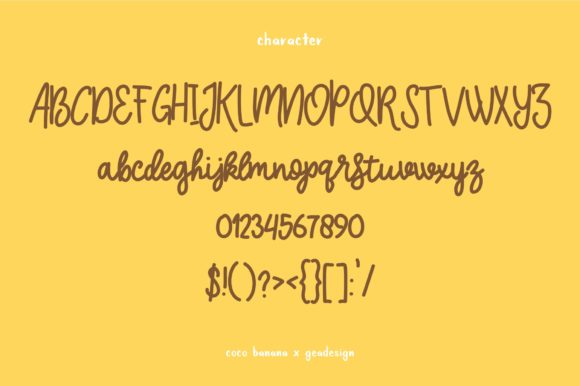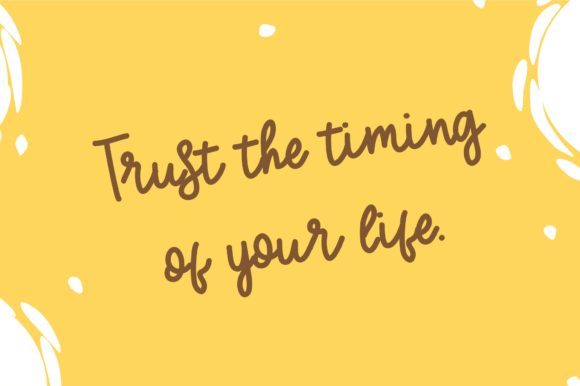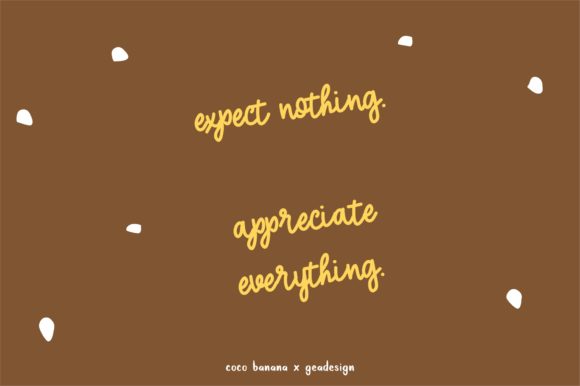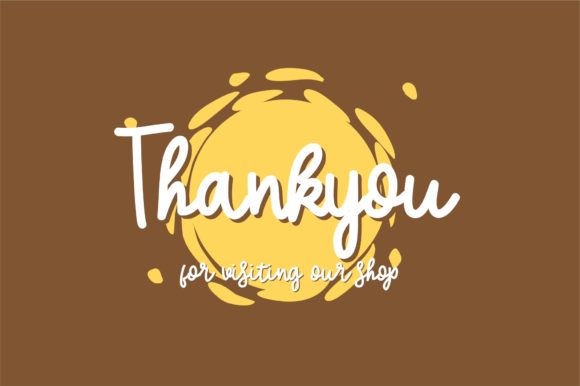
Coco Banana Font: The Ultimate Playful Handwritten Font for Your Creative Projects
Are you tired of using the same old fonts for your creative projects? Look no further! Introducing Coco Banana, a playful handwritten font that is sure to add a fresh and fun feel to your designs. In this article, we’ll dive into the world of Coco Banana Font, exploring its features, benefits, and uses, making it a must-have for designers and crafters alike.
Coco Banana: A Playful Handwritten Font with an Incredibly Fresh and Fun Feel!
Coco Banana is a carefully crafted handwritten font that exudes a sense of playfulness and fun. Its unique and quirky design makes it perfect for projects that require a touch of whimsy and personality. Whether you’re working on a children’s book, a craft project, or a branding campaign, Coco Banana is sure to bring a smile to your audience’s faces.
Features of Coco Banana Font
• Playful and Handwritten: Coco Banana is a handwritten font that is full of character and personality. Its playful strokes and curves make it perfect for creative projects that require a personal touch.
• Fresh and Fun: The font has an incredibly fresh and fun feel, making it ideal for projects that require a youthful and energetic vibe.
• Versatile: Coco Banana is a versatile font that can be used for a wide range of projects, from digital designs to print materials.
• Easy to Read: Despite its playful nature, Coco Banana is easy to read, making it perfect for body text and headings.
Benefits of Using Coco Banana Font
So, why should you use Coco Banana Font for your creative projects? Here are just a few benefits:
• Adds Personality: Coco Banana adds a touch of personality to your designs, making them stand out from the crowd.
• Increases Engagement: The playful and fun nature of Coco Banana is sure to engage your audience and keep them interested.
• Perfect for Branding: Coco Banana is perfect for branding projects that require a unique and memorable font.
• Easy to Pair: The font is easy to pair with other fonts, making it perfect for projects that require a combination of fonts.
Uses of Coco Banana Font
Coco Banana Font is perfect for a wide range of creative projects, including:
• Children’s Books: The playful and fun nature of Coco Banana makes it perfect for children’s books and educational materials.
• Craft Projects: Coco Banana is perfect for craft projects, such as scrapbooking, card making, and DIY tutorials.
• Branding and Packaging: The font is ideal for branding and packaging projects that require a unique and memorable font.
• Digital Designs: Coco Banana can be used for digital designs, such as social media graphics, blog posts, and website headers.
Tips for Using Coco Banana Font
Here are a few tips for using Coco Banana Font:
• Use it for Headings: Coco Banana is perfect for headings and titles, where its playful nature can shine.
• Pair it with Other Fonts: The font is easy to pair with other fonts, making it perfect for projects that require a combination of fonts.
• Experiment with Colors: Coco Banana looks great in a variety of colors, so don’t be afraid to experiment and find the perfect color scheme for your project.
In conclusion, Coco Banana Font is a playful handwritten font that is sure to add a fresh and fun feel to your creative projects. Its unique and quirky design makes it perfect for projects that require a touch of whimsy and personality. With its versatility, ease of use, and range of benefits, Coco Banana is a must-have for designers and crafters alike. So why not give it a try and see how it can elevate your designs?